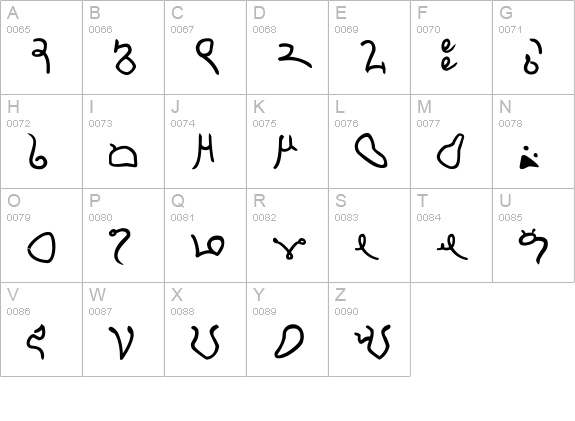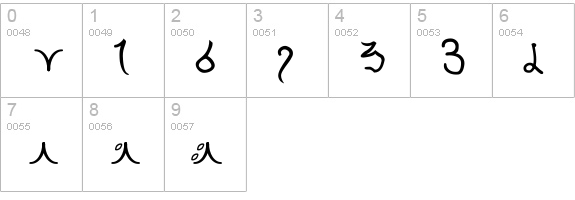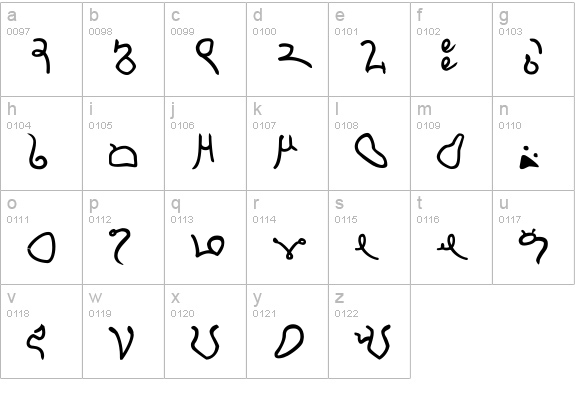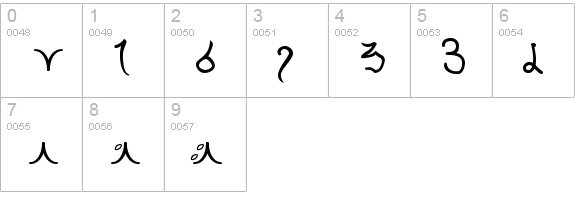
Minbari Font Details
The Minbari font is a captivating and elegant typeface that brings a touch of sophistication to any design project. With its unique blend of sleek lines and intricate details, this font is sure to make a statement. Whether you're creating a logo, designing a website, or crafting a piece of digital art, the Minbari font is the perfect choice to add a touch of style and flair. What's even better is that the Minbari font is available for free download at FontsMarket.com, allowing you to easily access this stunning typeface for all your creative endeavors. Don't miss out on the opportunity to elevate your designs with the exquisite beauty of the Minbari font – download it today and see the difference it can make in your projects.